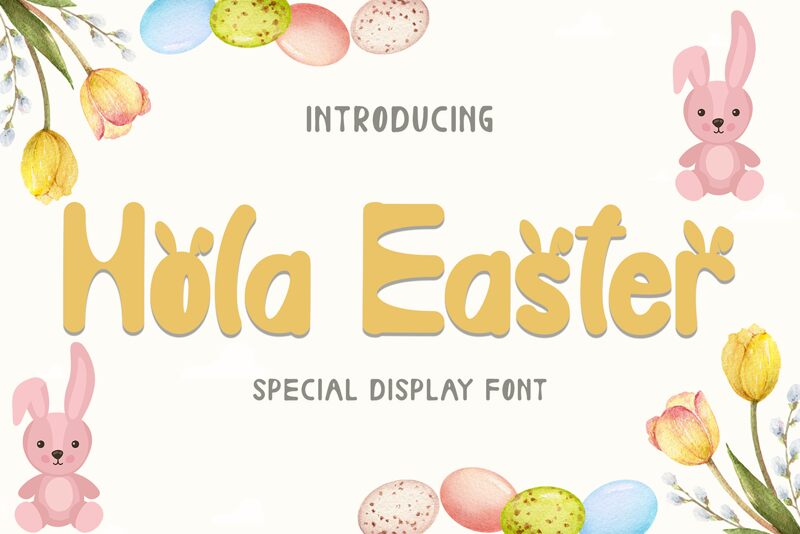
Hola Easter font by Yoga Letter is a free font with a whimsical and informal vibe. Its cheerful, friendly, and lighthearted design brings words to life with a retro-inspired look that combines both traditional and modern elements. Having an organic flow and contemporary appeal, it is ideal for various types of projects, especially those that are heading to a younger audience.
The beauty of this typeface is that the designer provides the rights to use it for free. Like many others, it would be a nice addition to your font library. Use it for friendly branding design or eye-catching package concepts. The decorative features of each letter make Hola Easter’s characters suitable for decorative titles and subtitles on flyers, brochures, and magazines. All personal and commercial copies of Hola Easter can be downloaded, ideal for poster designs, social media layout, and websites.